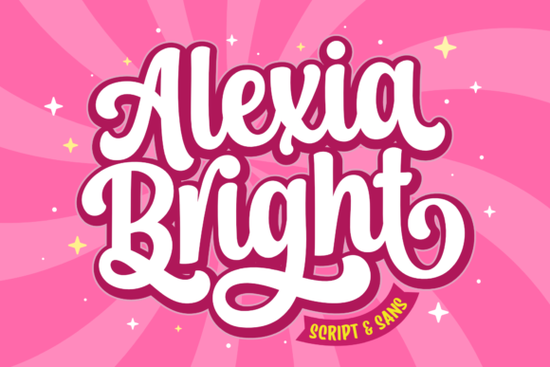
If you’re looking for a handwritten font that feels personal but still polished, Alexia Bright Font might be exactly what your next project needs. It’s delicate without being fragile, elegant without feeling stiff, and flows naturally like real handwriting the kind you’d find in a heartfelt note or a boutique shop’s branding. Whether you’re designing wedding invites, packaging labels, or social media quotes, this script adapts well without losing its charm.
What makes Alexia Bright different from other script fonts?
Not all handwritten fonts are created equal. Some feel too rigid, others too messy. Alexia Bright strikes a balance it’s graceful but legible, with letterforms that connect smoothly and swashes that add flair without overwhelming the design. The characters are well-proportioned, so even at smaller sizes, they hold up nicely on prints or digital screens.
One standout feature is that it’s PUA encoded. That means you don’t need special software or complicated key combinations to access alternate glyphs, ligatures, or swashes. Just open your favorite design tool whether it’s Canva, Adobe Illustrator, or Silhouette Studio and you’ll find everything neatly organized in the glyph panel. This makes it especially friendly for crafters and small business owners who want professional results without a steep learning curve.
Who should use this font?
- Print-on-demand sellers Use it for mugs, tote bags, or T-shirts with inspirational quotes. Its warmth reads well against solid backgrounds.
- Wedding stationery designers Pair it with clean sans-serifs for contrast. It’s softer than something like Royal Wedding, which leans more formal, making Alexia Bright ideal for casual-chic events.
- Small business owners Great for boutique logos, product labels, or Instagram story overlays. It adds personality without sacrificing readability.
- Hobbyists and DIY crafters If you’re cutting vinyl or printing greeting cards at home, this font scales well and doesn’t get lost in translation.
How does it compare to similar fonts?
If you’ve used Perfect Signature, you know that font leans into bold, confident strokes almost like a signed contract. Alexia Bright is its gentler cousin: same authenticity, but quieter, more intimate. For those who love ornate details, Celestine offers heavier flourishes, while Alexia keeps things airy and light.
It also sits comfortably between Authentic Society’s urban edge and the romantic curves of other delicate scripts. You could say it’s versatile enough to work across multiple moods from boho-chic to minimalist elegance depending on how you style it.
What kinds of projects work best with Alexia Bright?
Here are a few ideas to get you started:
- Wedding invitations Pair with a thin serif or clean sans-serif for contrast.
- Branding for handmade goods Soap labels, candle jars, or artisan bread packaging.
- Social media quote graphics Especially effective over soft pastel or textured backgrounds.
- Personalized gifts Think engraved jewelry tags, custom bookmarks, or framed art prints.
Because of its natural flow, it also works beautifully in longer phrases not just single words. Try using it for short poems, menu headers, or even chapter titles in self-published books.
Any tips for getting the most out of this font?
Yes spacing matters. Since it’s a connected script, sometimes letters can feel crowded if kerning isn’t adjusted. Most design programs let you tweak letter spacing manually. A little breathing room between words goes a long way.
Also, don’t be afraid to mix weights or styles if available. Even subtle variations like using a slightly bolder version for headlines can create hierarchy without switching fonts entirely.
And remember: because it’s PUA encoded, take five minutes to explore the glyph panel. You’ll often find hidden alternates that give your design that “custom calligraphy” look without extra effort.
Quick checklist before you start:
- ✅ Test readability at your intended size especially for print.
- ✅ Check contrast against your background color.
- ✅ Play with glyph alternates to avoid repetitive letter pairs.
- ✅ Pair with a simple complementary font for balance.